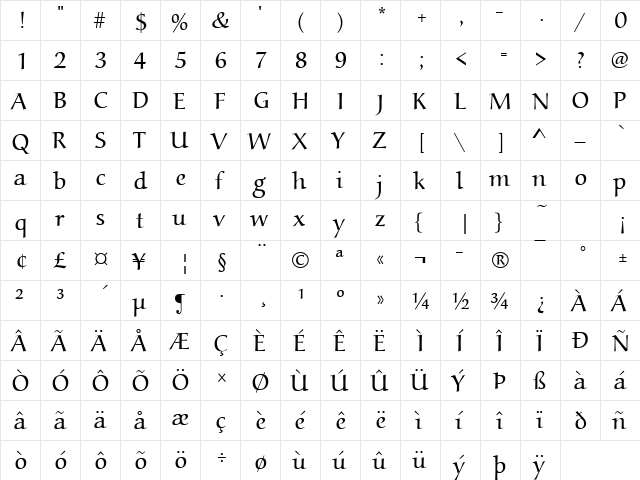
Alois Light Regular
Design Context for Alois Light Typeface
Alois Light offers clean, dependable letterforms without strong stylistic allegiance, making it a practical choice for designers who need flexibility. The delicate stroke weight brings airiness and refinement to layouts.